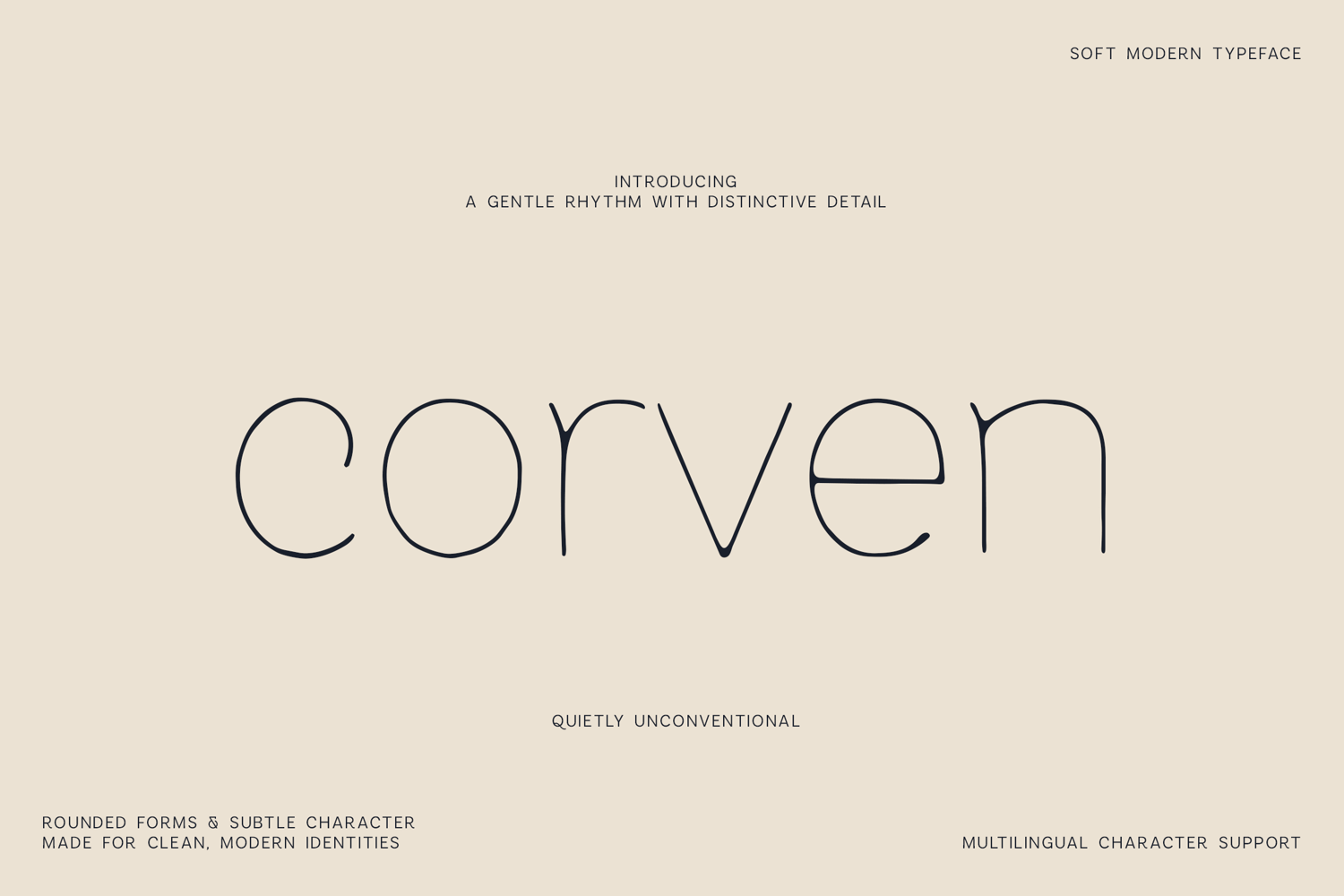
Modern Heritage Minimalist Sans Serif Font
Corven is a friendly minimal lettering style with soft curves, fine strokes and an easygoing modern character.
Its rounded shapes give the letters a welcoming personality, while the lightweight construction keeps the overall look clean and contemporary.
This balance makes Corven useful for both decorative projects and polished designs.
Corven works beautifully for names and short phrases where its soft details and rounded forms can give typography a more appearance.
A lovely option for projects that need friendly minimal lettering with a modern, delicate and approachable feel.